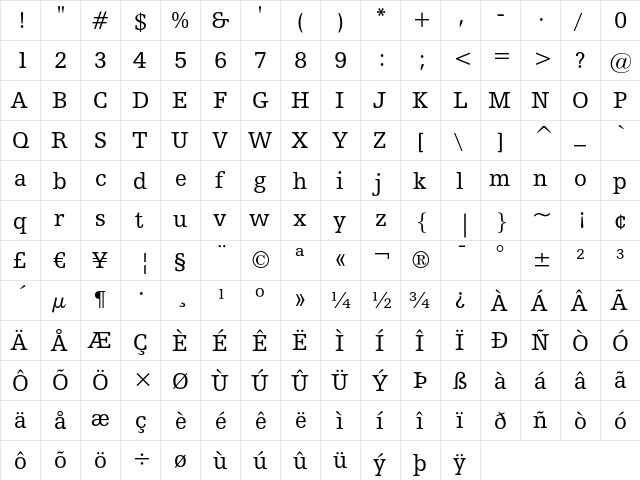
Humanist Slabserif 712 Regular
Design Context for Humanist Slabserif 712 Typeface
Humanist Slabserif 712 combines the readability of serif typography with the visual weight of a slab construction, resulting in a typeface that feels both authoritative and approachable.
Suited to magazines, political campaign materials, bold packaging, and any setting where authority matters.
Pro Tip: Use Humanist Slabserif 712 for headlines and subheadings where its slab serifs can make an impression. It also holds up well in mid-size body copy thanks to its sturdy construction.